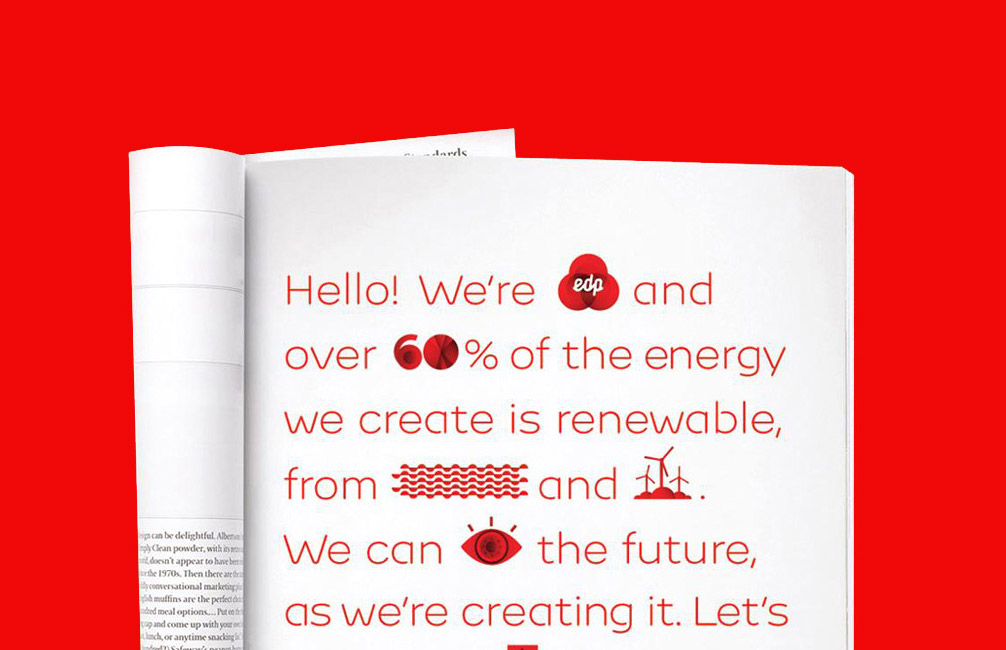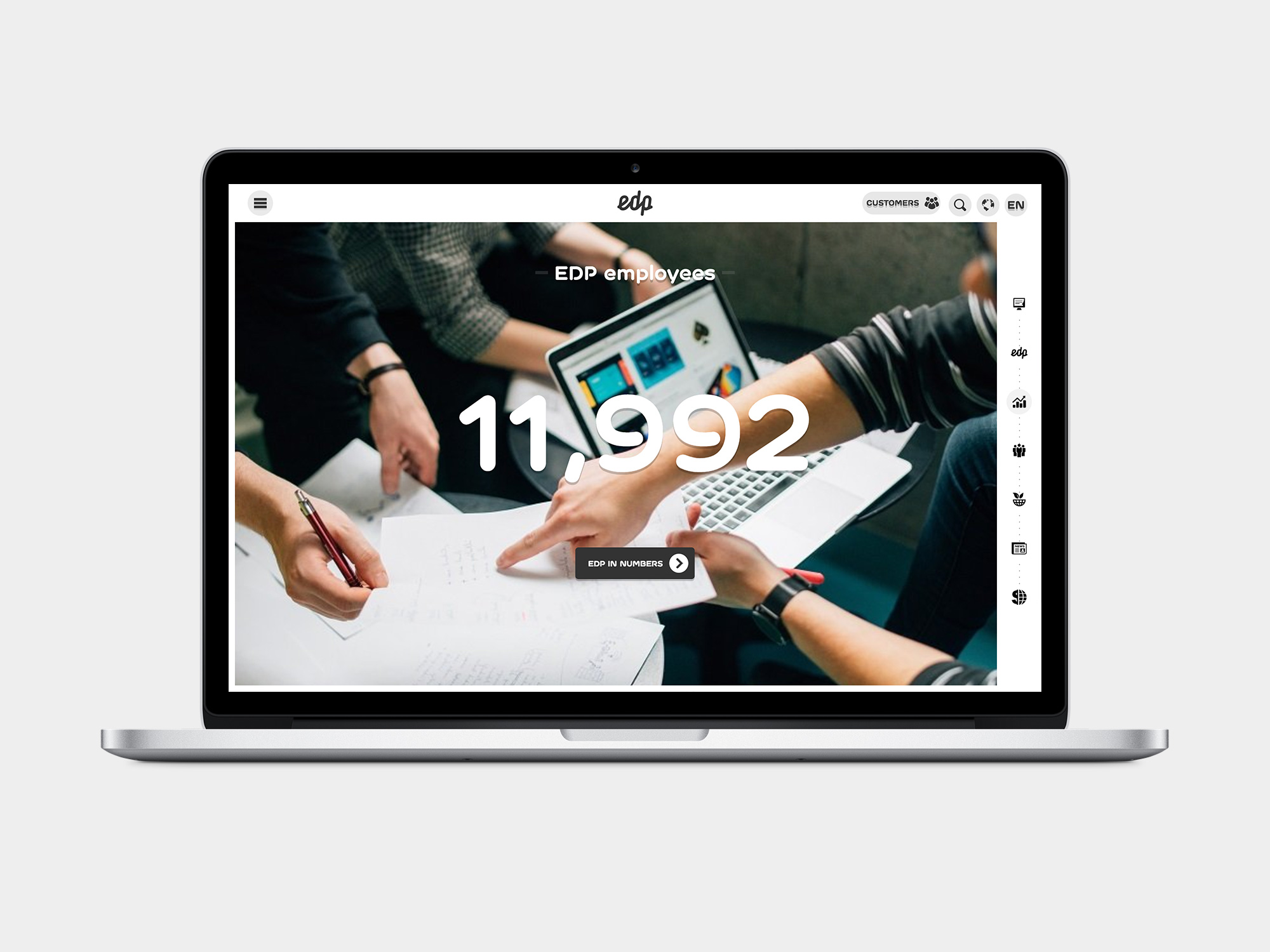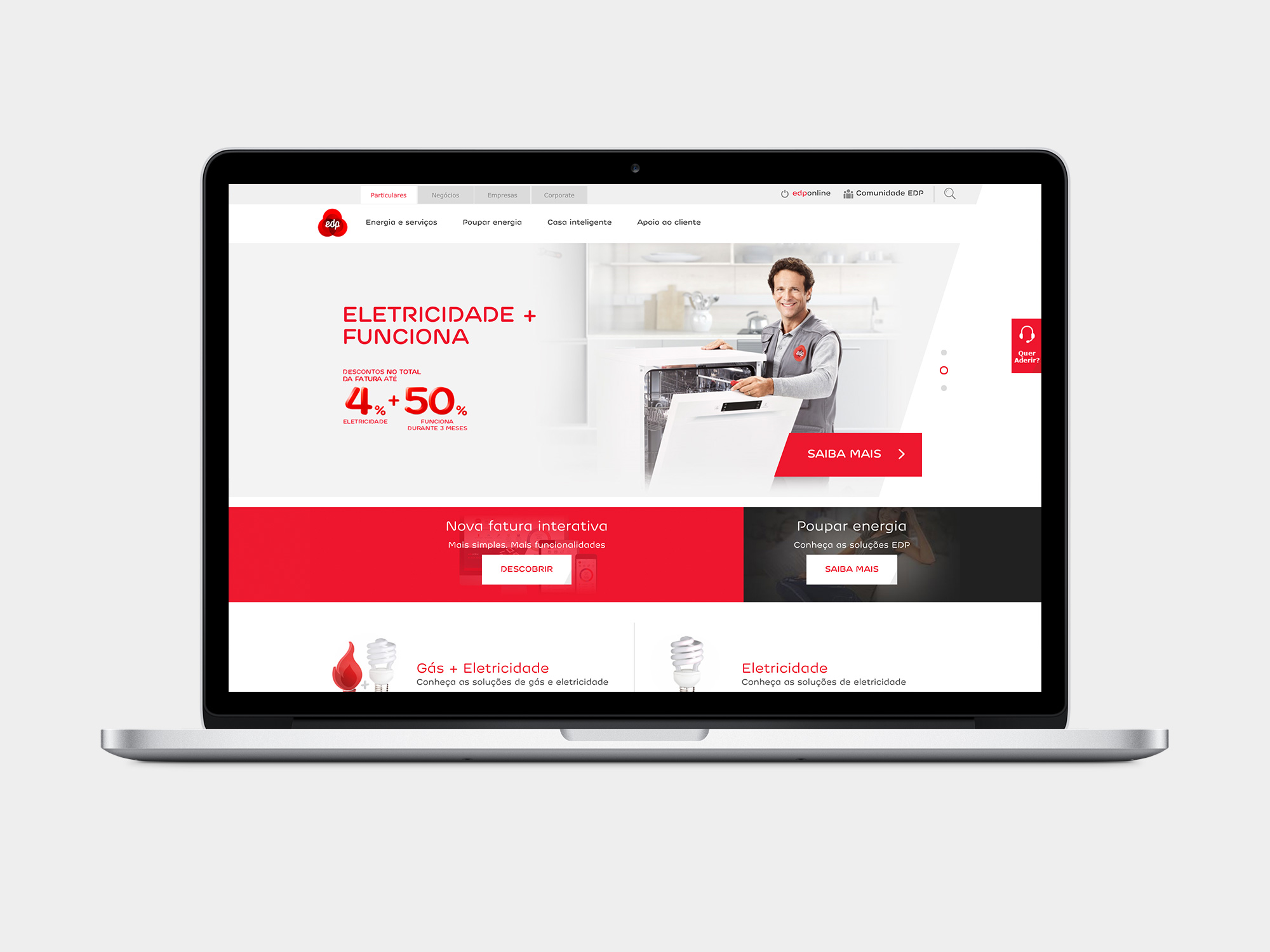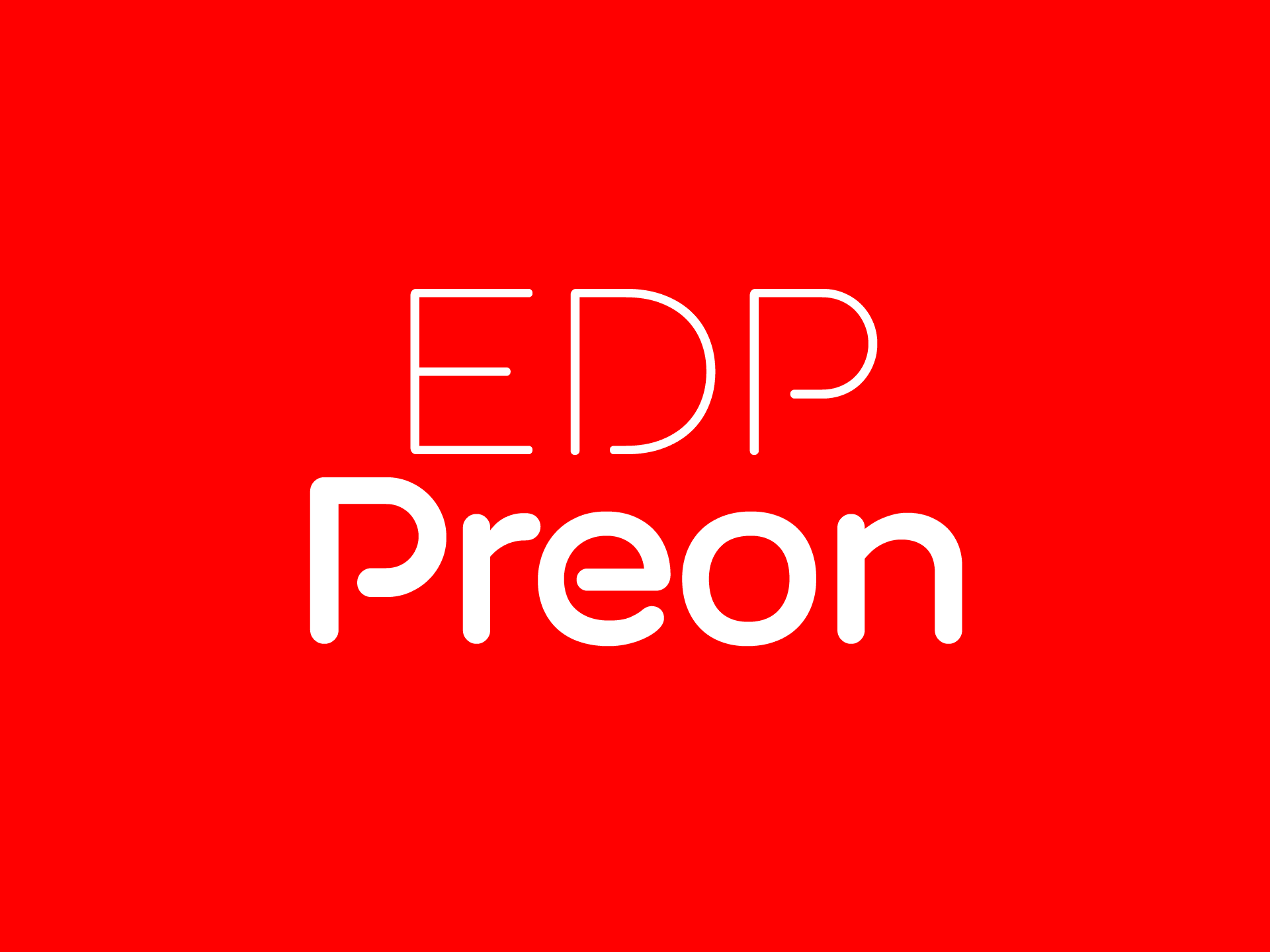
EDP
Custom display typeface for EDP, PT, one of the major European electricity operators. Jessica Walsh of Sagmeister & Walsh, US approached me with a request to update my Outliner typeface to better accommodate Portuguese diacritic marks when outline strokes are applied. This original request eventually resulted in a completely redrawn family of six weights with italics.
EDP Preon used on edp.pt.